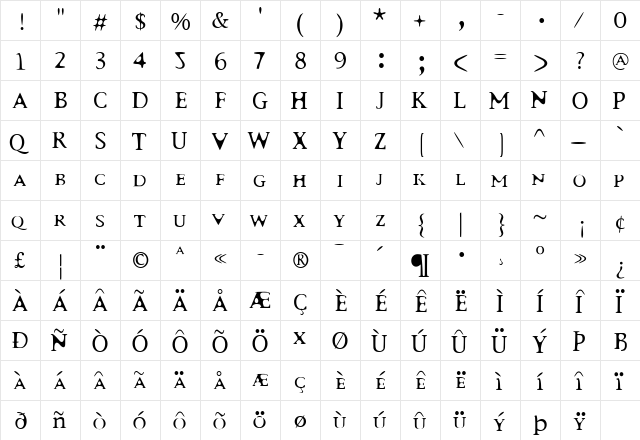
Surrogate Regular
| Foundry | Small Caps Surrogate\ Lunchbox Design, Designed by Adam Roe |
Design Context for Surrogate Typeface
Surrogate is a composed and adaptable typeface that performs quietly and consistently across a wide range of design contexts.